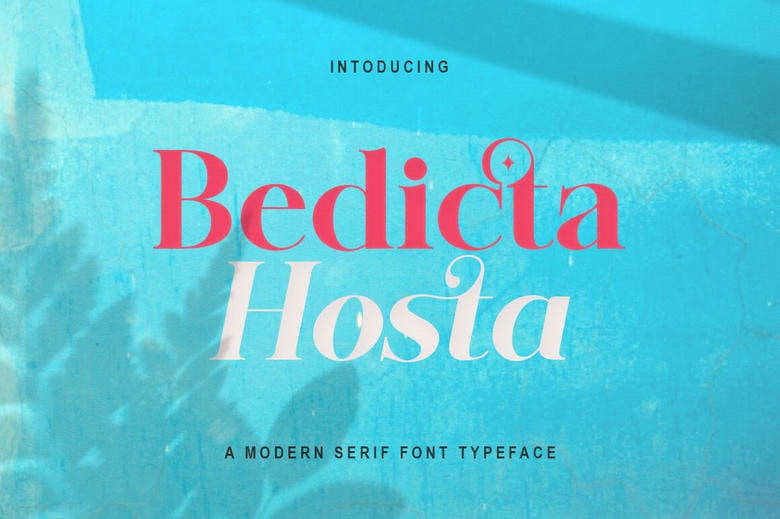
Bedicta Hosta Font
Bedicta Hosta is a serif font ED that possesses and embodies the general feel of a classical bookish typeface. As is observed from the design, this font has borders round the letters to offer it an expert and plush look.
The shapes of the letters are well-refined and meeting the exact human proportions that makes the font to be good for usage in logos, magazines typography or formal invitations. It is for this reason that the serif characteristics of the font provide a classical and old-fashioned appeal to a functional font.
Bedicta Hosta Serif Font